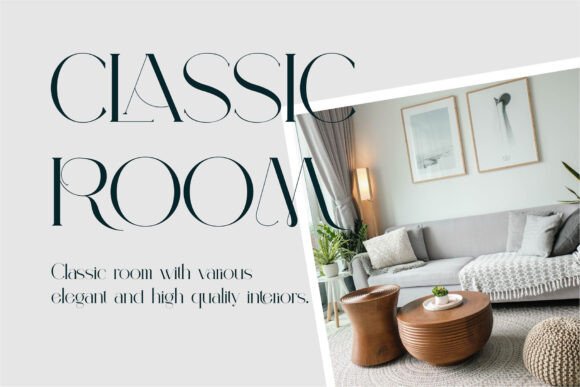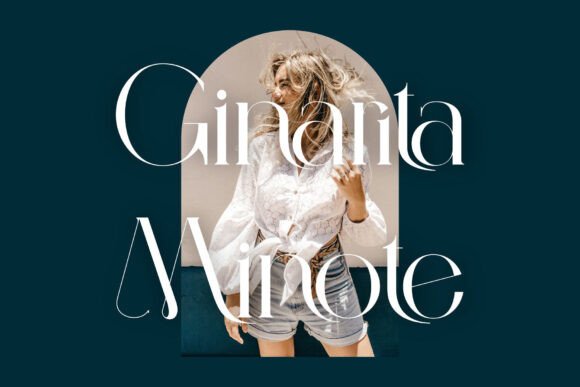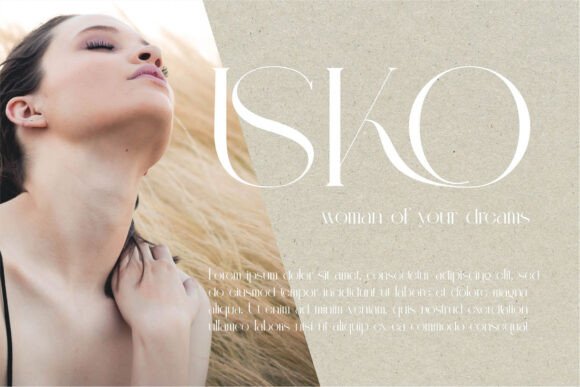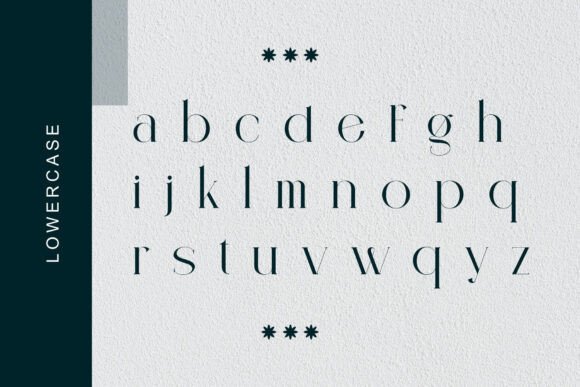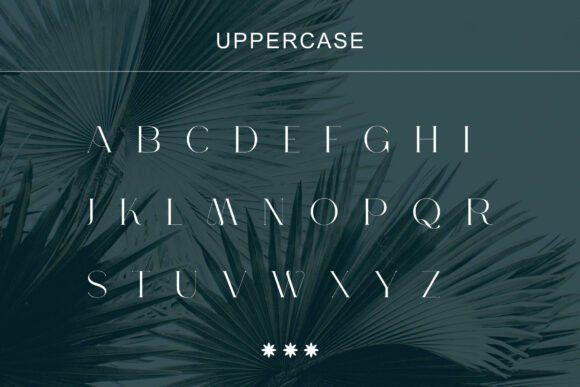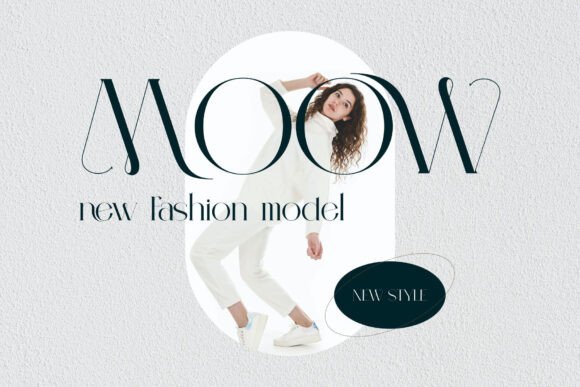
Introduction to Margito Font
Have you ever stared at a blank canvas, trying to bring your creative vision to life? The blank page can be intimidating, but the right design resource can make all the difference. For designers, finding the perfect font can be a game-changer – it’s the difference between a project that’s just okay and one that truly shines.
That’s where the Margito Font comes in. This elegant serif typeface is a masterclass in balance and sophistication, making it perfect for logos, magazine layouts, and social media graphics. With its modern and nostalgic vibe, it’s the perfect choice for designers who want to add a touch of high-quality elegance to their creative project.
What sets the Margito Font apart is its versatility – it’s built with OpenType features, making it easy to use and customize. Plus, with a transparent background and support for multiple languages, it’s a valuable addition to any designer’s toolkit. And the best part? It’s available for free download, making it an accessible resource for designers of all levels.
Key Features of Margito Font
- High-quality, free font for creative projects: Margito Font is a versatile design resource that can be used in various contexts, from digital art to print media.
- Transparent background: This font features a transparent background, making it ideal for use on various backgrounds and allowing for seamless integration into designs.
- Resolution and size: The font is available in various sizes, from 12 to 72 points, and is optimized for high-resolution displays, making it perfect for use in digital designs.
- Unique characteristics: Margito Font features a unique, modern design that sets it apart from other fonts in its category, making it a great choice for designers looking to add a touch of creativity to their projects.
- Perfect for design projects: With its high-quality design and transparent background, Margito Font is the perfect choice for designers working on creative projects, from logos and branding to digital art and print media.
Honest Review: Margito Font
As a designer, I’m always on the lookout for high-quality, free design resources to elevate my creative projects. Recently, I stumbled upon the Margito Font, and I’m excited to share my thoughts on it.
What works well: ✨ The Margito Font boasts a modern and elegant design, making it perfect for any project that requires a touch of sophistication. The font is highly legible, even at smaller font sizes, and it’s incredibly versatile – suitable for a wide range of creative projects, from editorial design to branding materials.
What I love most about the Margito Font is its transparent background, which allows it to seamlessly integrate with any design element. Plus, it’s a free download, making it an excellent addition to any designer’s toolkit.
- Versatile and legible
Limitations: ⚠️ One potential issue I’ve noticed is that the Margito Font may not be suitable for projects that require a more dramatic or bold font style. Additionally, the font’s design may not be as distinctive as some other fonts in its class.
Overall, I’m thoroughly impressed with the Margito Font. It’s a solid addition to any designer’s arsenal, and I highly recommend it for any creative project that requires a high-quality, elegant font.
Tips for Getting the Most Out of Margito Font
For the best results, use Margito Font on a transparent background to make it stand out in your design. Experiment with different font sizes and colors to find the perfect combination for your creative project.
Is the Margito Font suitable for designs with a transparent background, and how can I achieve this effect?